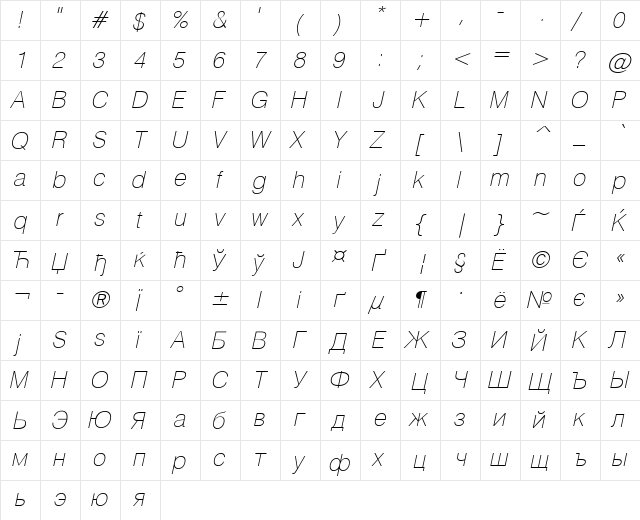
HeliosThin Regular Font Preview
HeliosThin Regular
HeliosThin Regular Font Details
Design Context for HeliosThin Typeface
HeliosThin offers clean, dependable letterforms without strong stylistic allegiance, making it a practical choice for designers who need flexibility. The delicate stroke weight brings airiness and refinement to layouts.